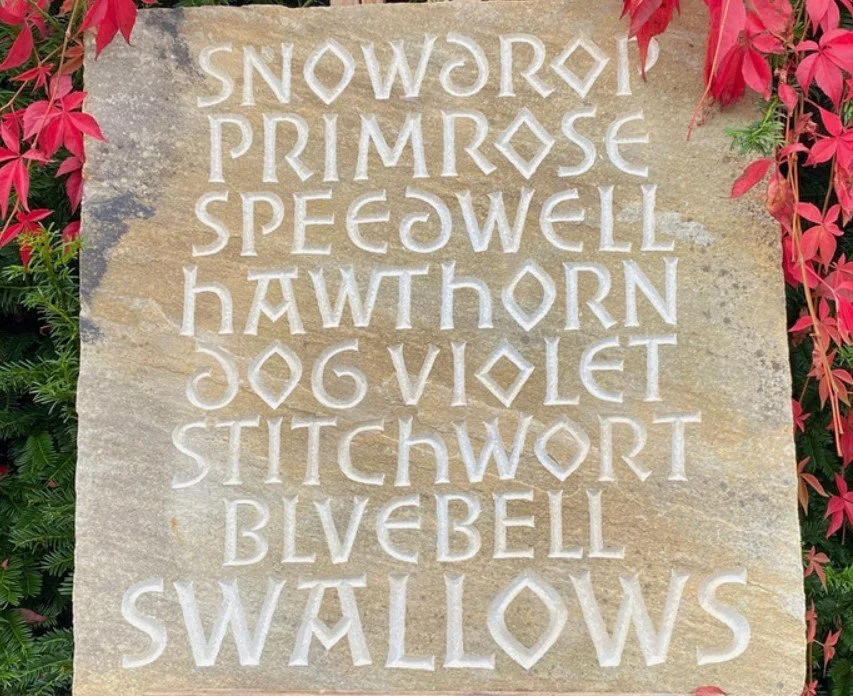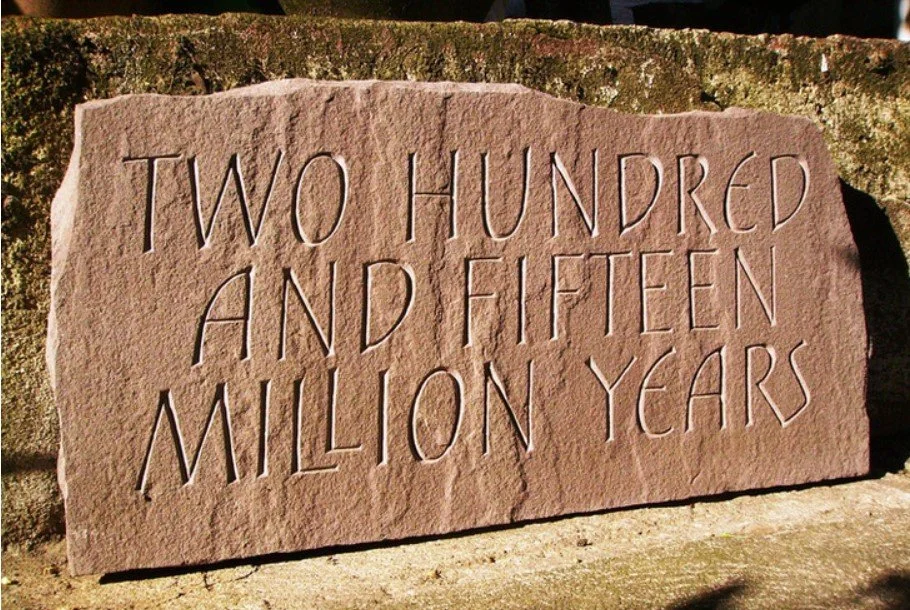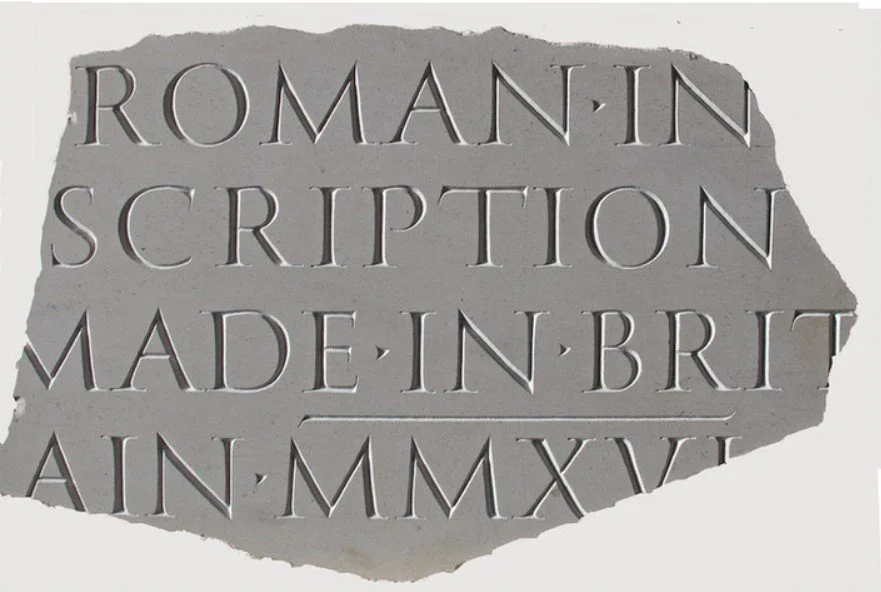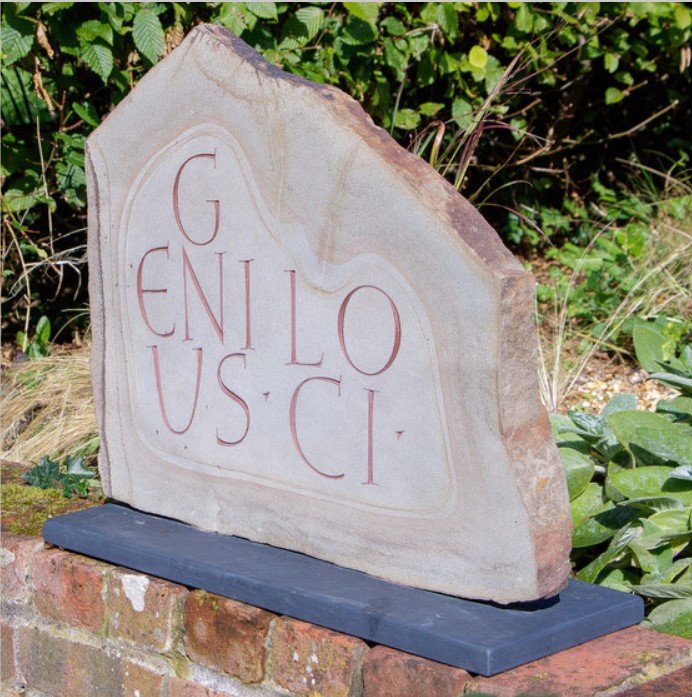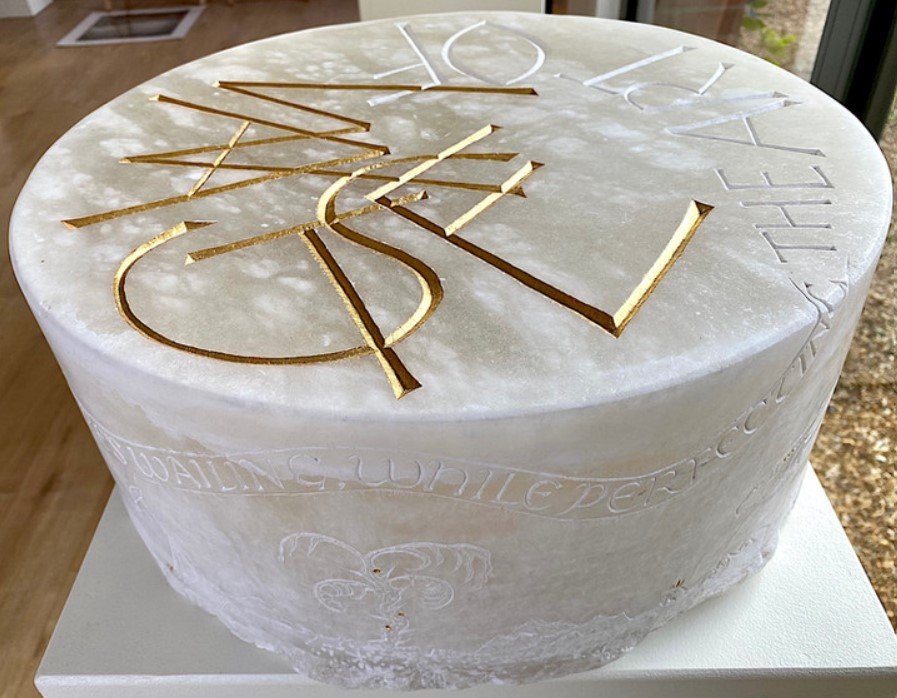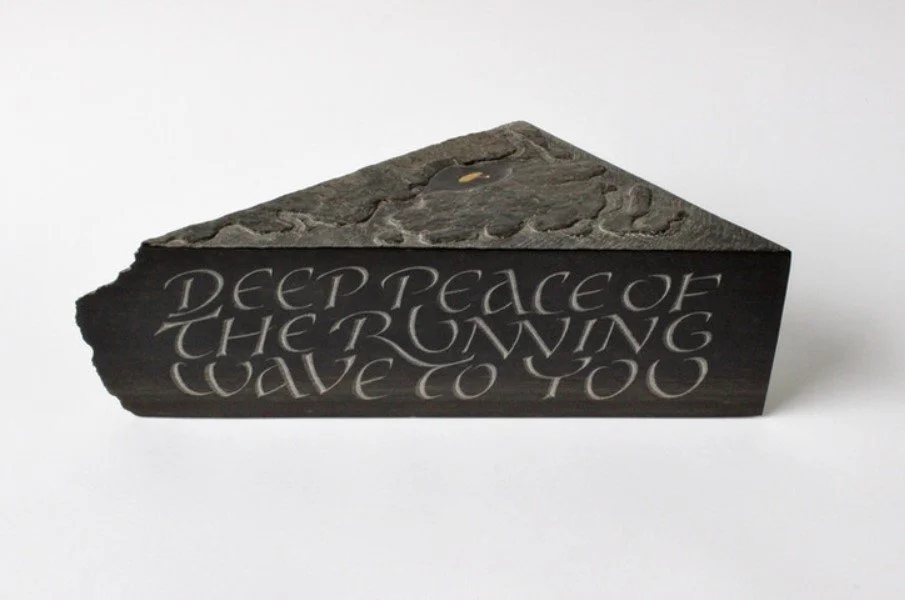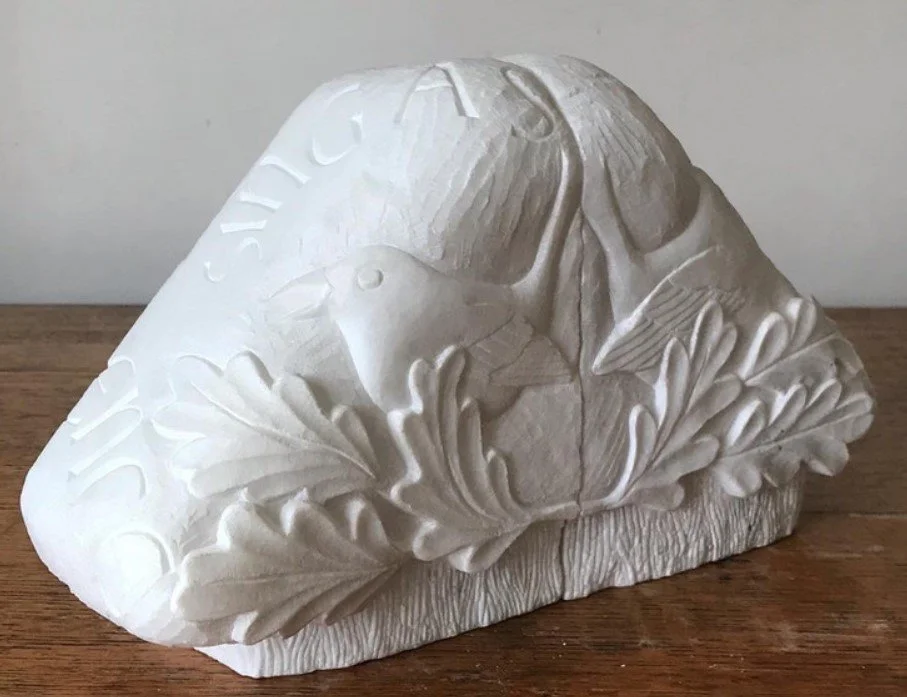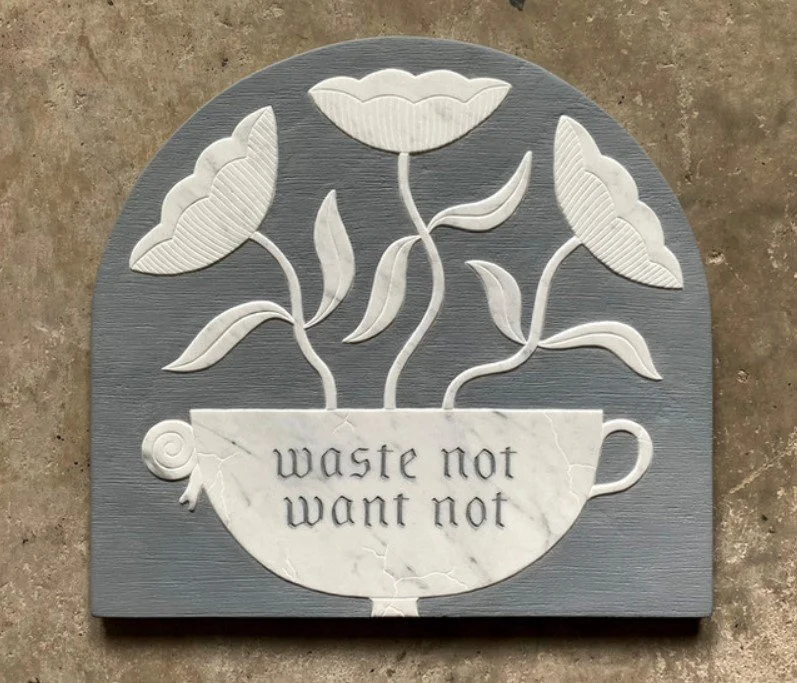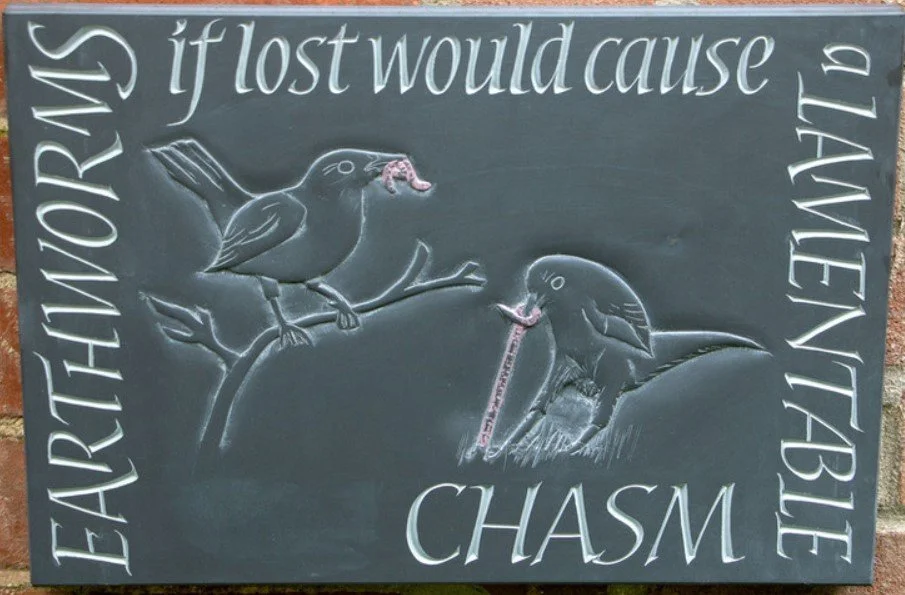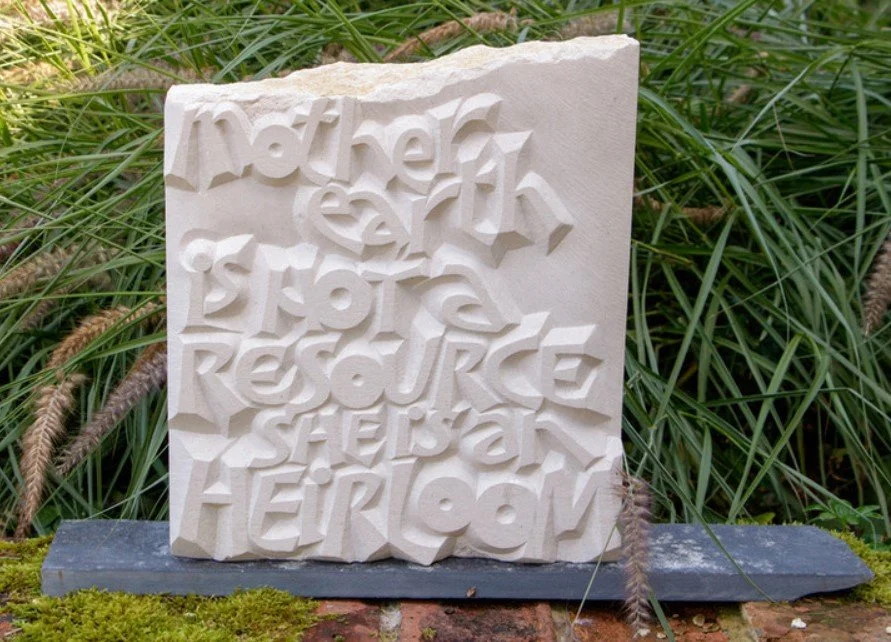
'Transfigured' Exhibition at Rachel Bebb Contemporary
Transfigured ("transform into something more beautiful or elevated") is an exhibition held at Rachel Bebb Contemporary.  The exhibition celebrates letter carving and exhibitors were encouraged to use offcuts, in the spirit of recycle, reuse and reduce.
“At a time when some quarries are running short of certain stone, or the quality of what they are finding is diminishing, it seemed appropriate to try to make every piece of material matter. So, the idea sprang up for an exhibition which would challenge artists to reach into the corners of their studios, select an offcut, and elevate it, creating something beautiful from what might have been a redundant or forgotten slice of our planet. It seemed in keeping with the spirit of reducing waste and honouring natural resources.”
Catherine Samy. Lettering Arts Trust, Chair of Trustees.
Andrew Whittle - A Spring Calendar
Old Indian sandstone paving slab; lettering inspired by Saxon inscriptions 60 cms sq. £2,960
Andrew Whittle -
Eternity's Sunrise
, Eternity's Sunset
Kilkenny stone, from a scrap pile at the quarry, William Blake quote 39 x 22.5 cms sq. £2,960
Anna Louise Parker - 215 Million Years
Indian red sandstone offcut; letters denote the age of the stone) 25 x 50 cms £550
Annet Stirling - Roman Inscription
Purbeck pond freestone 42 x 65 x 3 cms £1,015
Emi Gordon - Angels Can Fly
Black slate 45 x 14 cms £1,440
Eric Marland - Genius Loci
Polished sandstone off-cut, probably Woodkirk from Yorkshire, polished Welsh slate base) 52 x 60 x 21 cms £2,960
Gaynor Goffe - The Tree
Calligraphy 60 x 44 cms framed £395
Helen Mary Skelton - And we, being mule-ish...
Alabaster, gold leaf 17 x 41 cms £1,035
Iain Cotton - Deep Peace of the Running Wave
Caithness stone, gold leaf 24 x 18 x 9 cms £1,780
Jackie Perkins - "Heaven is under our feet as well as over our heads"
Welsh slate, quote from Henry David Thoreau 50 x 25 x 2 cms £1,480
Lisi Ashbridge - Platter
Black American walnut, inspired by Keats 'Ode to Autumn' 49w x 28.5d cms £2,200
Louise Tiplady - Sing a Song' bookends
Carrara marble 5.5 x 31 x 8 cms £1,200
Matt Loughlin - Waste Not, Want Not
Reclaimed marble 33 x 35 x 2 cms £1,500
Maya Martin - Earthworms
Welsh slate 28 x 41 cms £815
Nia Bennett - Mother Earth
Portland stone, David Ipina of the Yurok tribe, California 35 x 31 x 8 cms £1,250
Phil Surey - Quiet Joy
Marble from the base of a fire surround 22 x 25 cms £675
Pip Hall - Wordsworth plaque
Penrhyn slate, inscription from 'I wandered lonely as a cloud' by Wordsworth 25 x 25 x 23 cms £730
Rachel Butler - The Isle of Innisfree
Upcycled plum slate, painted and gilded, W. B. Yeats 35 cms sq. £1,900
Teucer Wilson - All Shall Be Well
Caithness stone, painted letters 17 x 35 x 2.5 cms £4,850